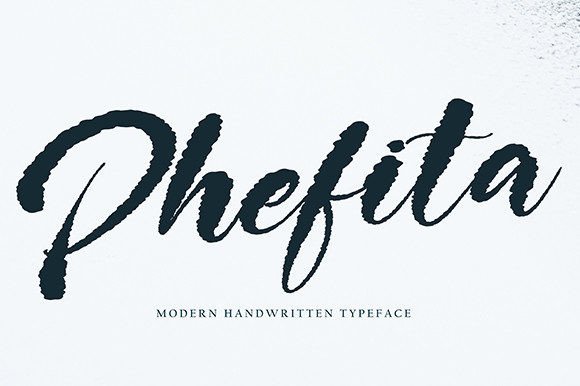
Phefita Font
About Phefita Font
A Bold and Modern Script Font
The Phefita Font is a bold script typeface with a modern twist, offering a fresh style perfect for a variety of creative projects. Its strong and dynamic design makes it ideal for quotes, logos, blog headers, posters, and much more. Whether you’re working on branding, invitations, or stationery, the Phefita Font adds an energetic and impactful touch to your designs.
Perfect for Logos and Branding
The Phefita Font is an excellent choice for creating logos and branding materials. Its bold, flowing script makes your logo stand out and gives your brand a unique identity. Whether you’re designing for a business, creative agency, or event, this font offers a modern, stylish touch that ensures your brand is memorable and distinctive.
Ideal for Quotes and Typography Projects
The Phefita Font is perfect for any typography-based projects, including quotes, slogans, and headlines. Its bold, dynamic script ensures that your text stands out and grabs attention. Whether you’re creating motivational quotes for social media, website content, or marketing materials, this font brings a contemporary, bold style to your typography.
Great for Invitations and Stationery
The Phefita Font works beautifully for invitations and stationery. Whether you’re designing wedding invitations, thank you cards, event invites, or greeting cards, this font brings a touch of elegance and boldness to your designs. Its unique script style makes it perfect for both formal and informal events, ensuring your invitations stand out and feel personalized.
Versatile for Multiple Design Applications
The Phefita Font is versatile and can be used for a variety of creative projects. From branding and logos to posters, flyers, business cards, and social media graphics, this font is adaptable and works beautifully across both digital and print media. Its bold, modern style makes it a perfect fit for projects that need to make a statement.
Bold, Impactful, and Easy to Use
Despite its bold appearance, the Phefita Font is easy to use and legible. Its dynamic script maintains clarity, making it perfect for both large headlines and smaller text applications. Whether you’re working on print designs, website content, or social media posts, this font ensures your message is clear and impactful, with a unique, stylish flair.
Add Boldness and Personality to Your Designs
Whether you’re working on logos, invitations, quotes, or branding, the Phefita Font is the perfect choice to add boldness and personality to your designs. Its modern script style ensures your projects stand out and leave a lasting impression, whether they’re for personal or professional use.
Elevate Your Creative Projects with Phefita Font
If you’re looking to add a bold and modern touch to your designs, the Phefita Font is the ideal choice. Whether you’re designing logos, posters, invitations, or social media content, this font brings both elegance and boldness to your projects. Elevate your work with the stylish and impactful Phefita Font.